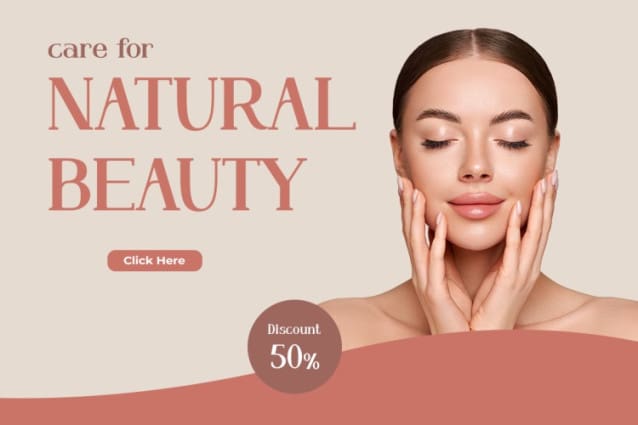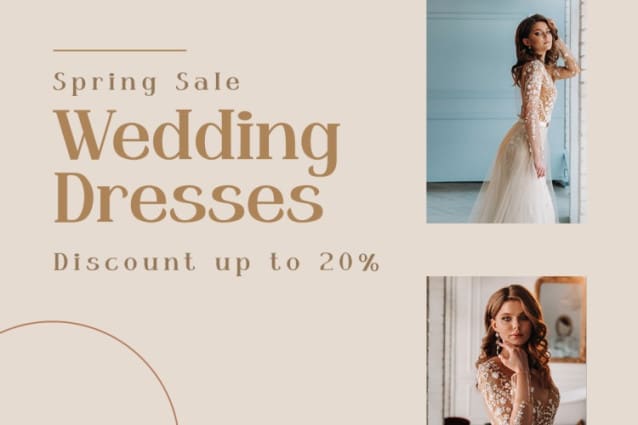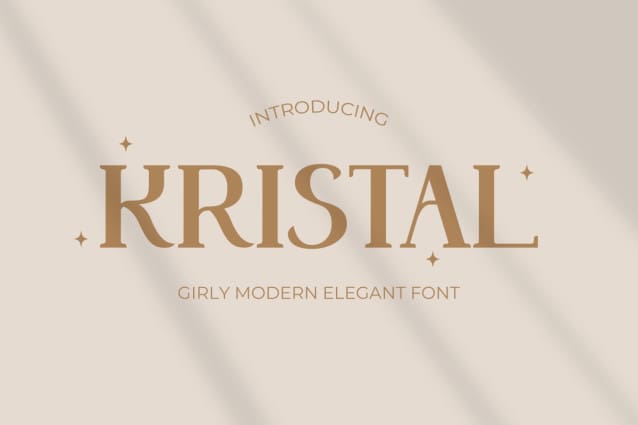
Kristal Font
Kristal Font a font that dances between elegant sophistication and playful charm. Inspired by classic calligraphy, Kristal’s sharp yet graceful strokes add a touch of sparkle to your words, whether crafting heartwarming invitations or eye-catching posters.
With its unique personality, Kristal shines in diverse settings. Elevate your brand identity, make your quotes unforgettable, or add a touch of whimsy to packaging and product design.